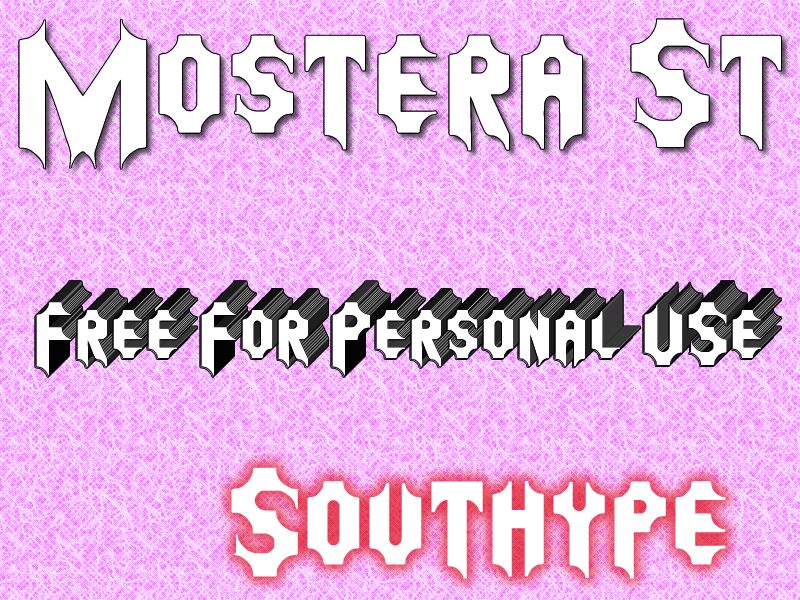
Mostera St
Mostera St is a striking gothic font that blends modern flair with a touch of dark elegance. Defined by its bold, condensed letterforms and angular serifs, this font exudes a distinct sense of strength and character.
The unique letter shapes, with their sharp edges and organic curves, create a captivating visual rhythm that commands attention. Mostera St's versatile nature allows it to seamlessly transition between a range of design applications, from bold branding and editorial layouts to impactful typographic art.
Its versatility and striking aesthetic make it a compelling choice for designers seeking to imbue their work with a bold, memorable presence.